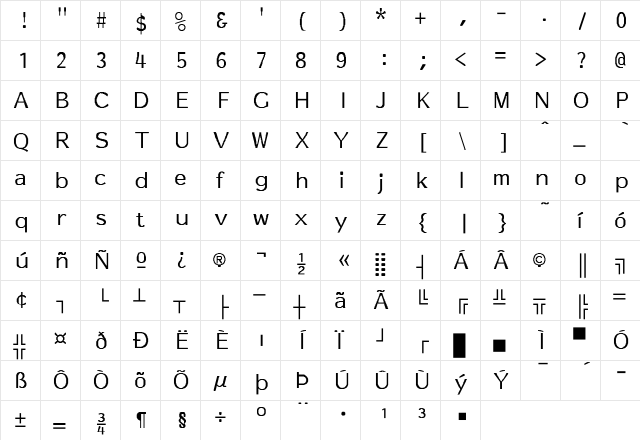
Essay-Normal Regular Font Preview
Essay-Normal Regular
Essay-Normal Regular Font Details
Design Context for Essay-Normal Typeface
Essay-Normal is a composed and adaptable typeface that performs quietly and consistently across a wide range of design contexts.
Pro Tip: Pair Essay-Normal with a font of contrasting weight or personality to build a more expressive typographic hierarchy.